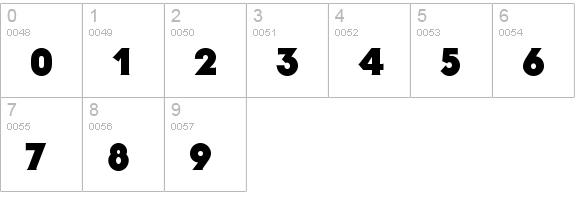
SerifGothicEF-Black Font Details
SerifGothicEF-Black is a maximum-weight, dramatic variant in the SerifGothicEF typeface family \xE2\x80\x94 well suited to maximum-impact headlines, posters, and packaging.
SerifGothicEF-Black is a bold and striking font that exudes a sense of elegance and modernity. With its sharp serifs and clean lines, this font is perfect for creating attention-grabbing headlines, logos, and branding materials. The SerifGothicEF-Black font is designed with a strong and commanding presence, making it ideal for projects that require a bold statement. Its thick strokes and distinct letterforms give it a unique and eye-catching appeal, ensuring that your designs will stand out from the crowd. One of the best things about SerifGothicEF-Black is that it is freely available to download at FontsMarket.com. This means that you can easily access and utilize this stunning font in your creative projects without any cost. Whether you are a professional designer or a casual enthusiast, having access to high-quality fonts like SerifGothicEF-Black can greatly enhance your work. The versatility of this font allows it to be used in a variety of design contexts. From magazine layouts to website headers, from packaging designs to signage, SerifGothicEF-Black can elevate any project with its bold and impactful presence. Its legibility and distinct character make it suitable for both print and digital applications. So why wait? Head over to FontsMarket.com and download SerifGothicEF-Black today. Explore the endless possibilities that this font offers and unleash your creativity. With SerifGothicEF-Black, you can captivate your audience and make a lasting impression with your designs. Don't miss out on this incredible font that is freely available to enhance your creative journey.